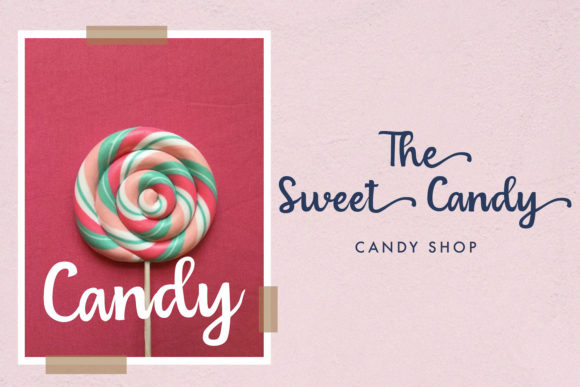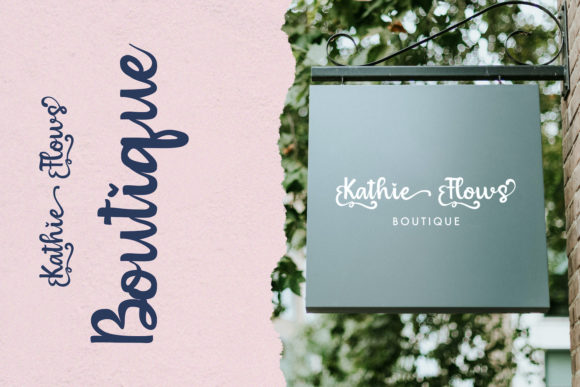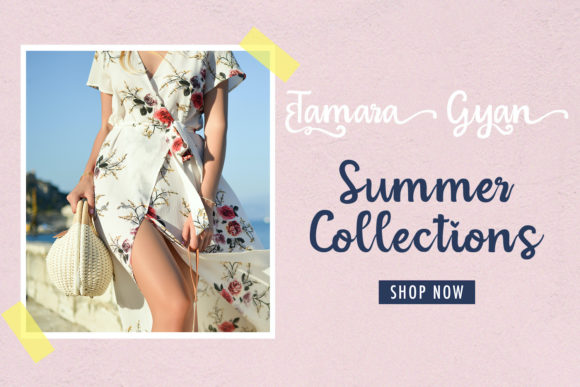
The Bulgaria Font: A Friendly and Versatile Handwritten Delight
I’ll never forget the time I was working on a project for a client’s craft business, and I just couldn’t find the right font to match their brand’s friendly and approachable vibe. I scrolled through page after page of Google Fonts, but nothing seemed quite right. That was until I stumbled upon the Bulgaria font. Its casual charm and incredibly friendly feel instantly won me over, and I knew I’d found the perfect fit. In this article, I’ll share my love for the Bulgaria font, its features, and how to make the most of it in your designs.
• ✨ The Bulgaria font has an incredibly friendly and down-to-earth feel, making it perfect for a wide range of design projects.
• ✅ Its casual charm ensures it remains readable, even on busy backgrounds or as a standalone headline.
• 🎉 The font is PUA encoded, giving you easy access to all the cute glyphs and swashes.
• 🔍 It also features alternate glyphs and ligatures, adding to its versatility.
While the Bulgaria font is amazing, there are a few things to keep in mind:
• ⚠️ As with any font, it’s essential to test it in different contexts to ensure it works well with your specific design.
• 🤔 Some users might find the font too casual for certain projects, so it’s crucial to consider your brand’s tone and style.
The Story Behind Bulgaria Font
The Bulgaria font was designed with the intention of creating a friendly and versatile typeface suitable for a wide range of design projects. The designer aimed to craft a font that felt approachable and down-to-earth, perfect for brands looking to connect with their audience on a personal level. While the exact details of the design process are not publicly available, it’s clear that the font’s creator succeeded in producing a unique and highly usable typeface.
Font Name Bulgaria Font
Q: What is PUA encoding, and how does it benefit the Bulgaria font?
A: PUA (Private Use Area) encoding allows for the inclusion of additional glyphs and characters beyond the standard Unicode range. This means that the Bulgaria font can include a wide range of swashes, glyphs, and alternate characters, making it incredibly versatile and fun to use.
Q: How do I access the alternate glyphs and ligatures in the Bulgaria font?
Q: Is the Bulgaria font suitable for body text?
A: While the Bulgaria font is incredibly readable, its casual and friendly nature makes it more suited to headings and titles. For body text, you might prefer a font with a bit more formality or a clearer, more traditional design.